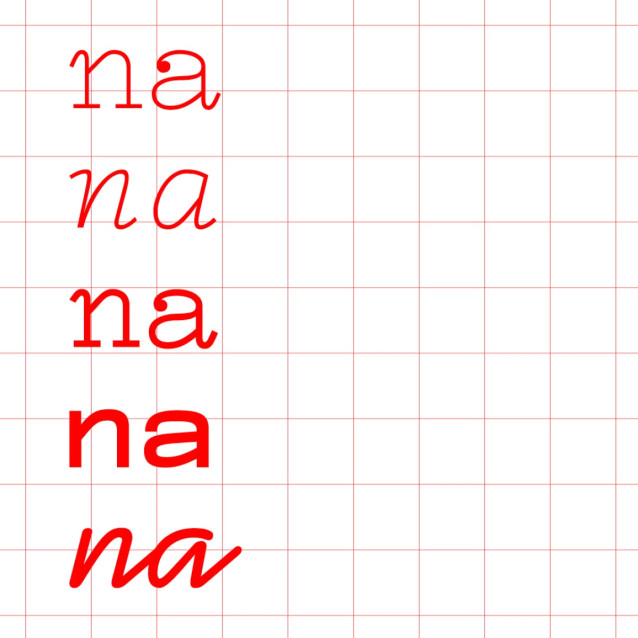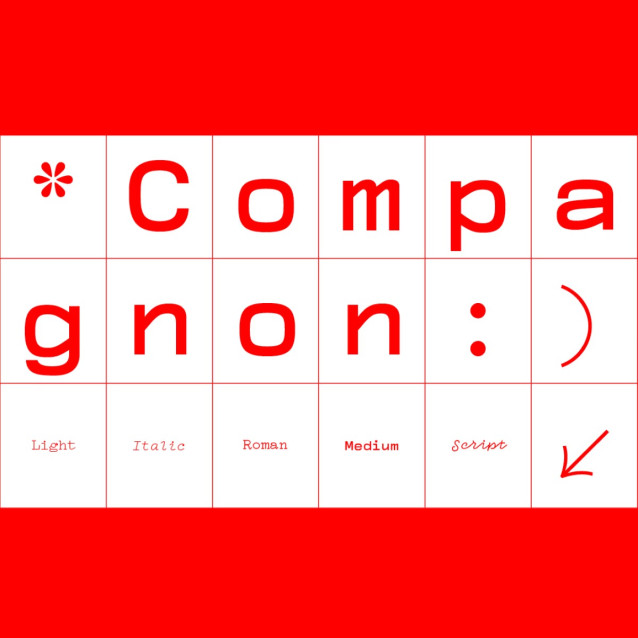
Compagnon Font Family is an eclectic, collaborative type family that fuses historical sensibility with bold, experimental character. Developed by a group of students and designers at EESAB-Rennes, it was conceived as a research-led, open-source response to the evolution of typewriter and transitional type forms — resulting in a family that feels both reverent and refreshingly contemporary.